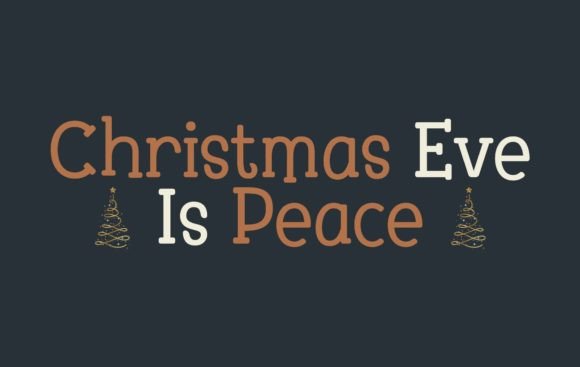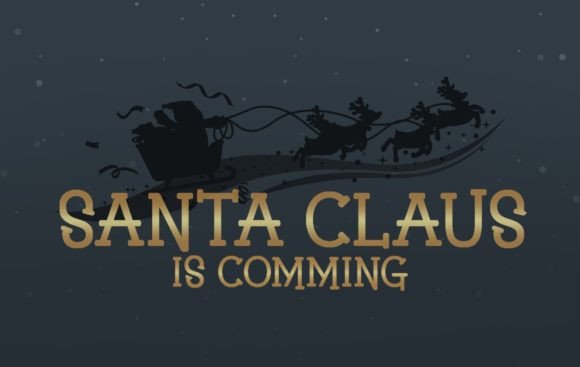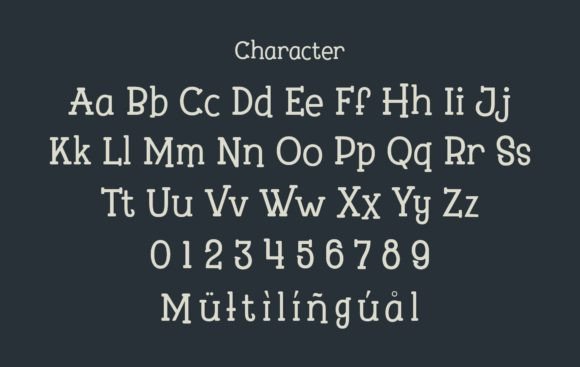
Christmas Lounge Font
Christmas Lounge is a fun and joyful display font. It embodies playfulness and authenticity and is the perfect choice for a large variety of projects.